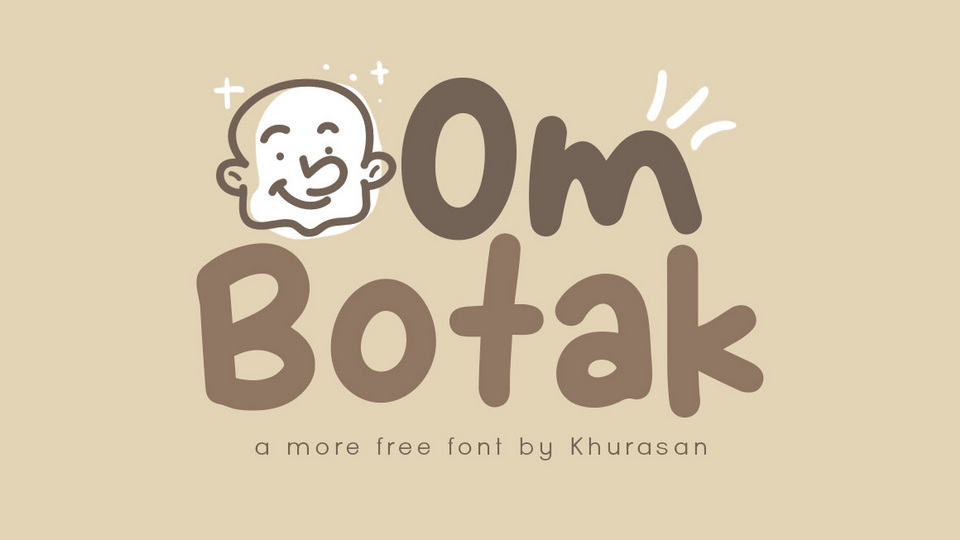
Download Om Botak font, a simple and funny handwritten typeface. Om Botak is perfect for posters, logos, magazines, cover books, banners, and much more.